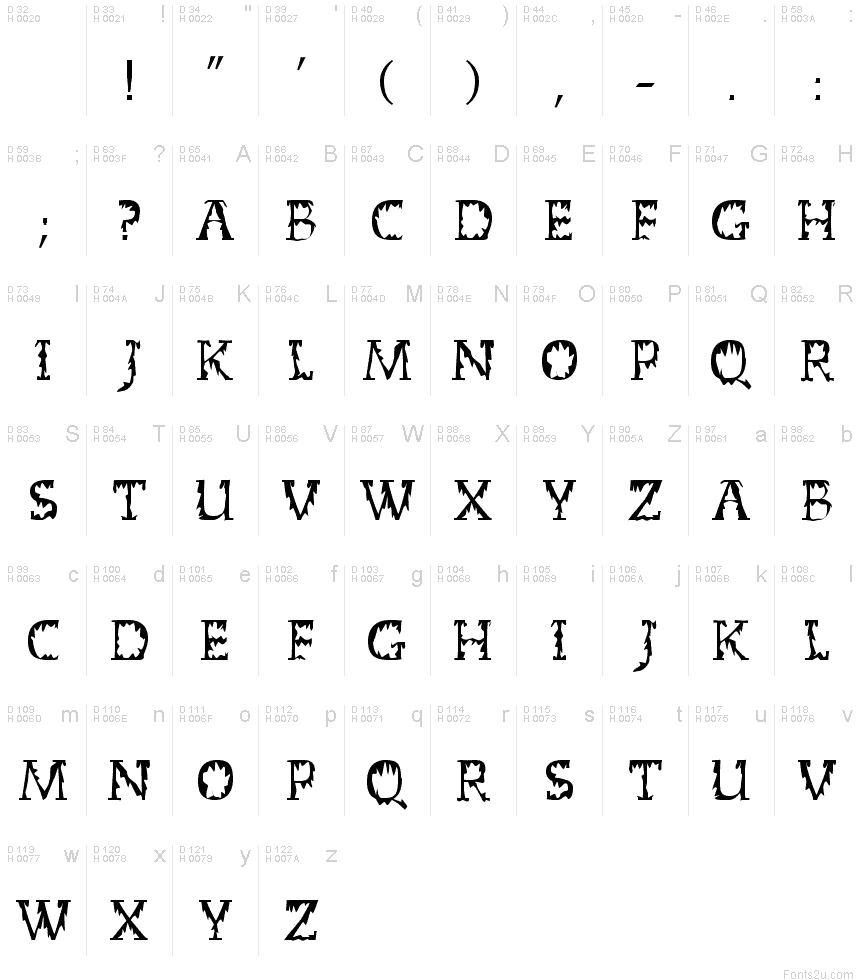
Dead World
Dead World font is a free eroded horror display font that looks like its letters have been chewed away from the inside, leaving jagged silhouettes and uneven edges. The bold, blocky forms still read clearly at a glance, but the broken interiors and splintered contours add a raw, decayed energy that feels straight out of a crumbling poster on a haunted alley wall. Its heavy presence and rough texture make it a striking choice whenever you want text to feel unstable, dangerous, or undead.
Using Dead World, this free font really shines on horror movie titles, zombie comics, haunted house flyers, Halloween branding, game logos, metal band wordmarks, and eerie book covers. The chunky letters hold up at large sizes where every torn detail can breathe, while shorter phrases pack a punch in tight layouts. For readability, pair it with a clean, neutral sans-serif in smaller supporting text so the distressed style stays impactful without overwhelming your design.